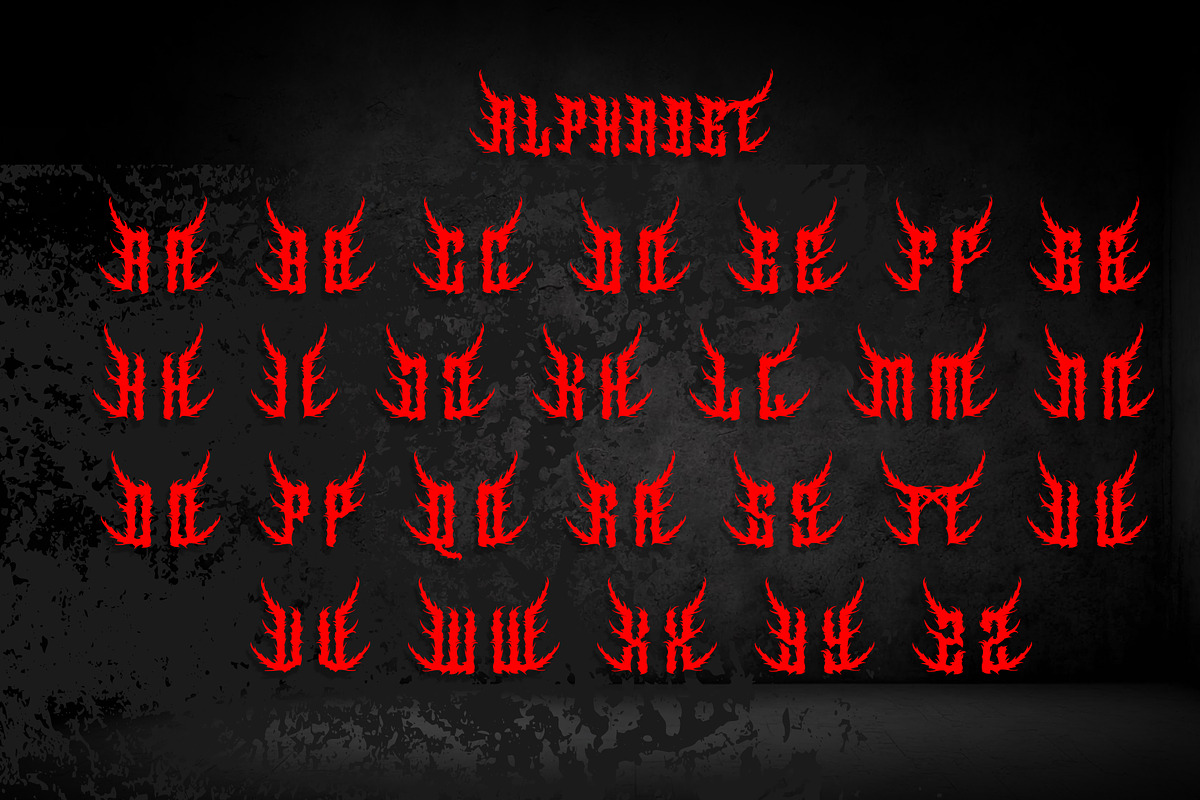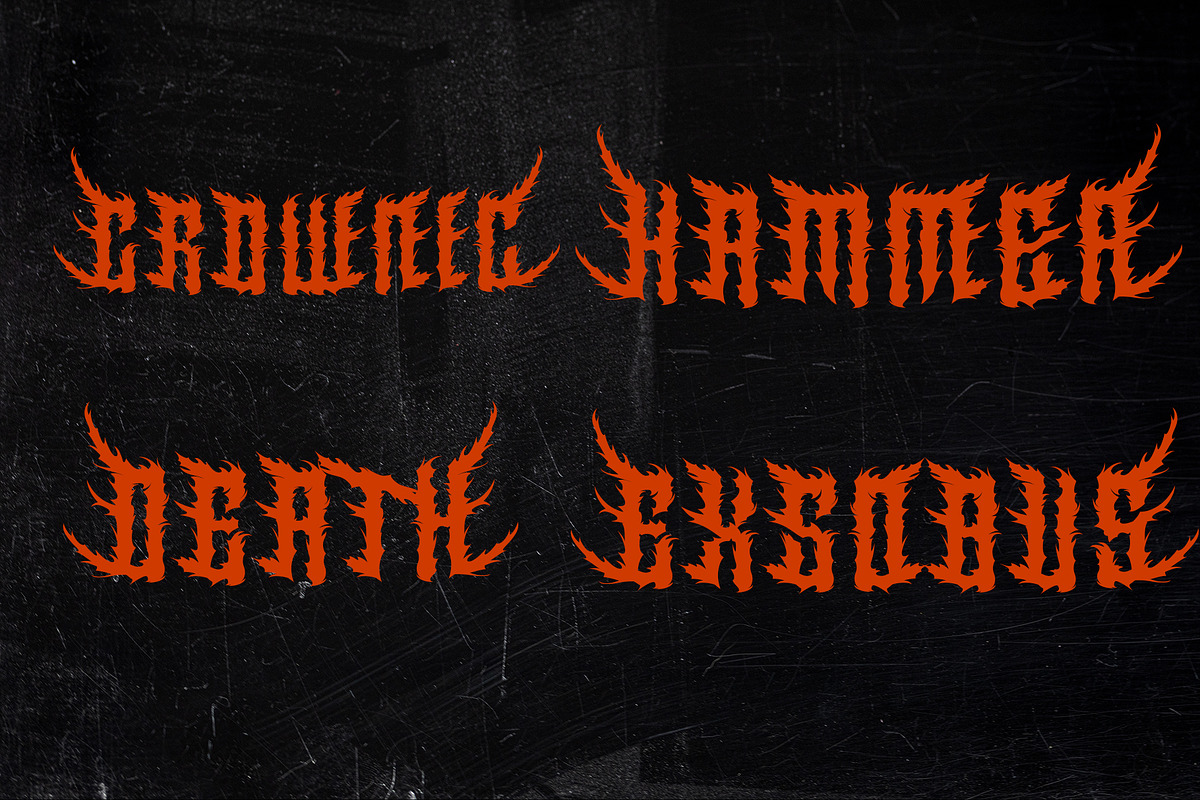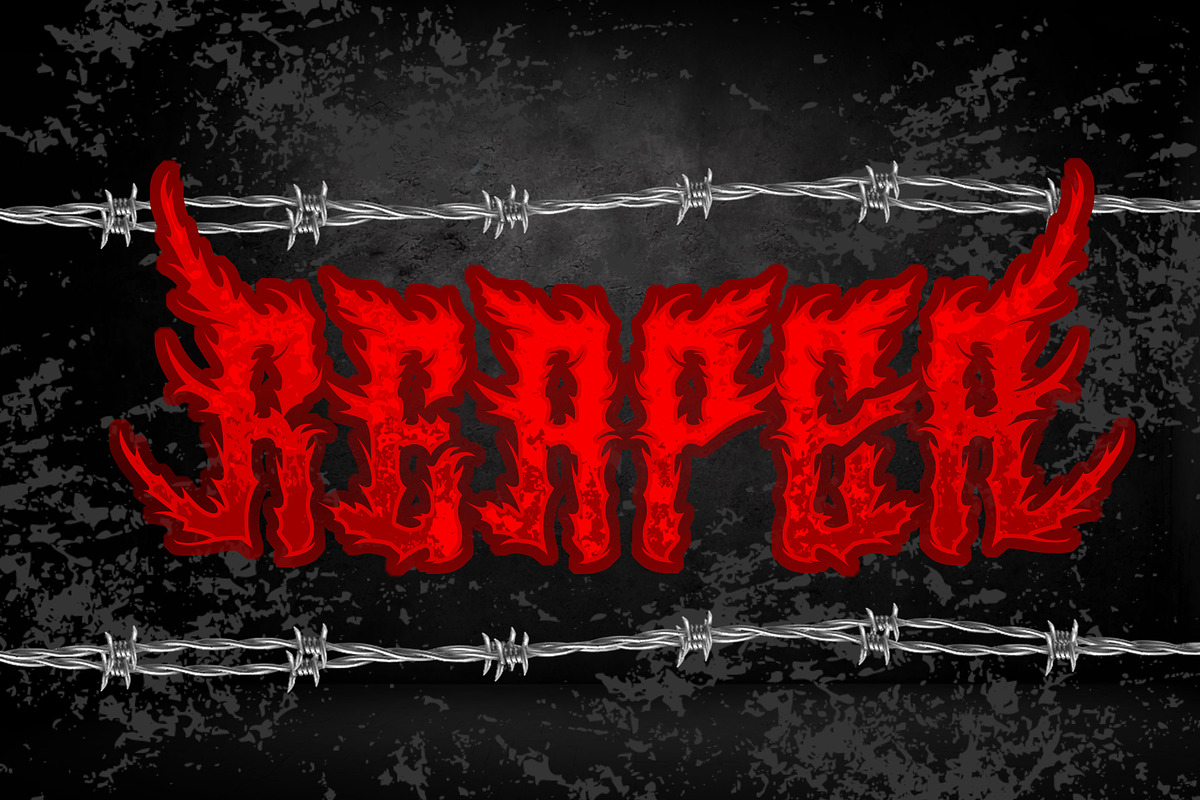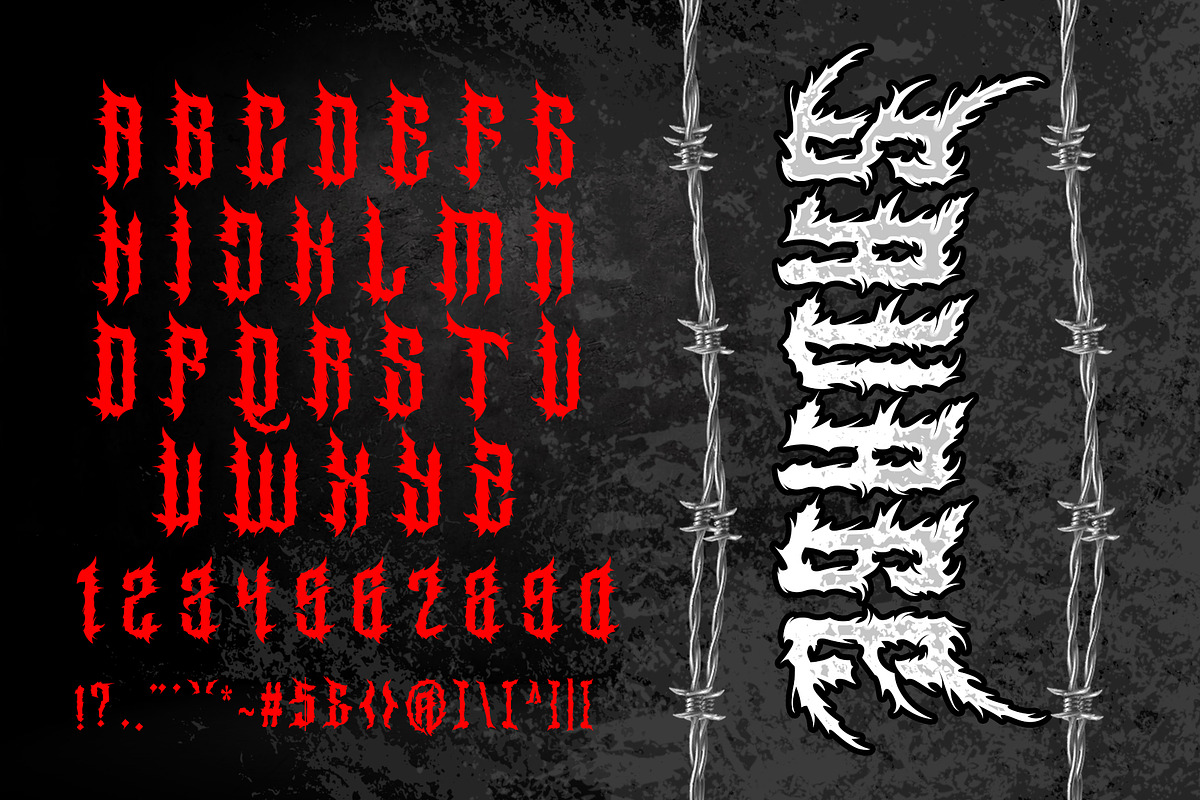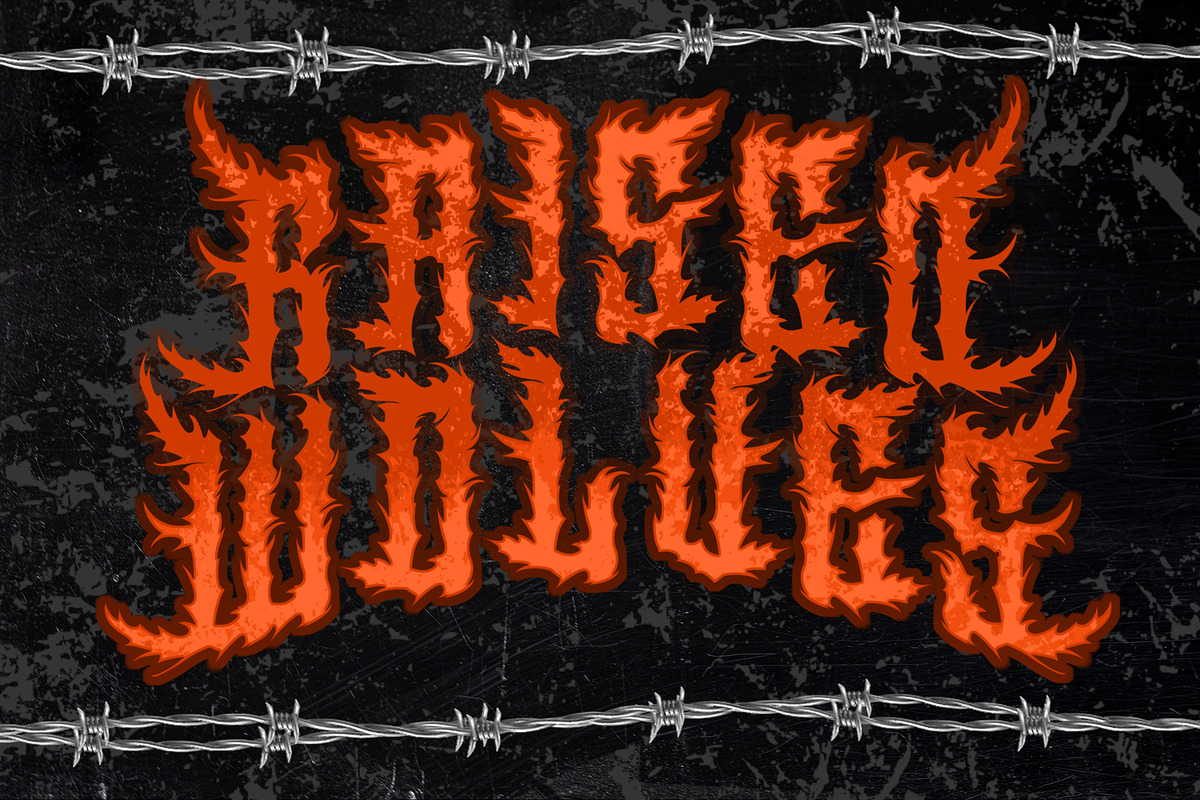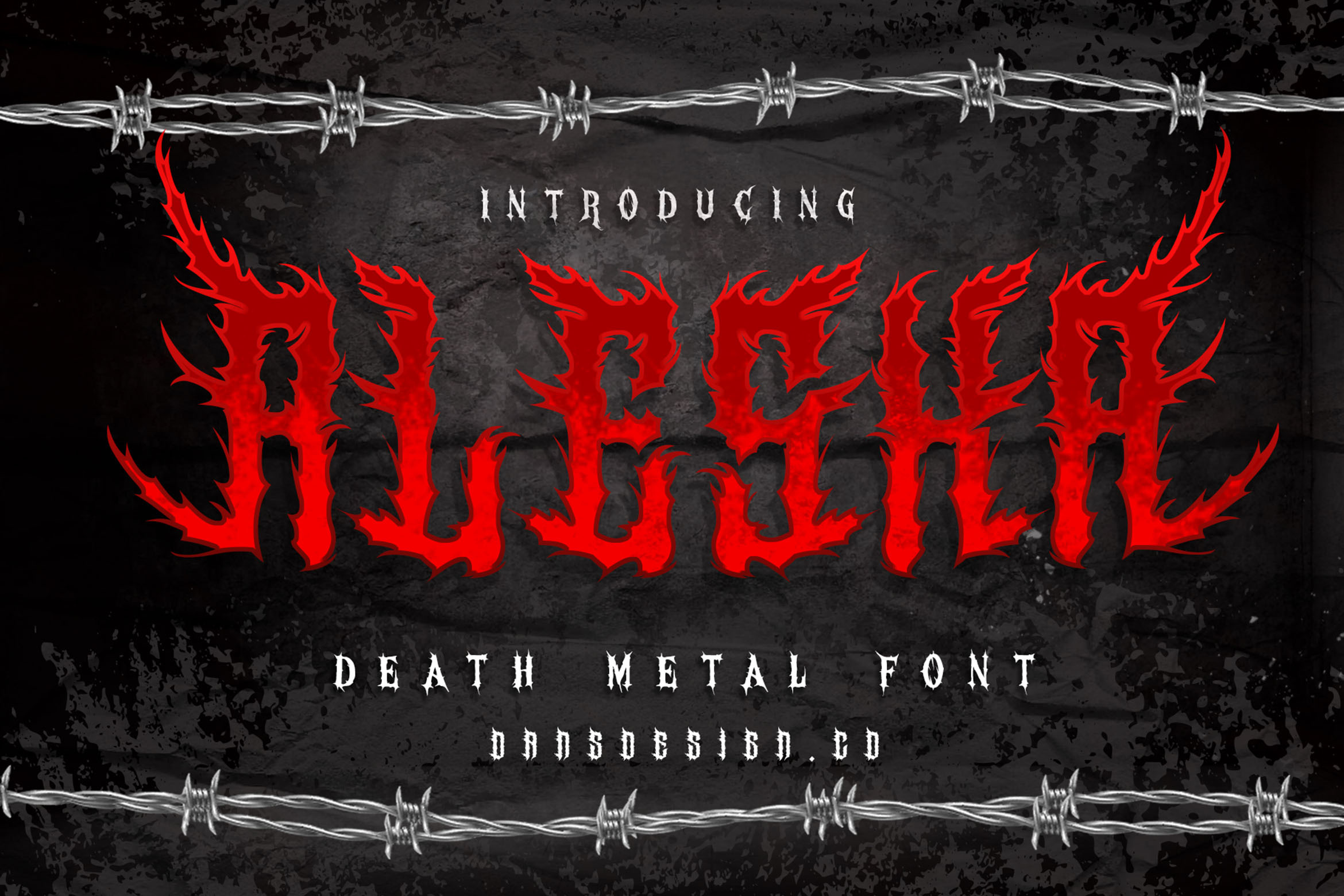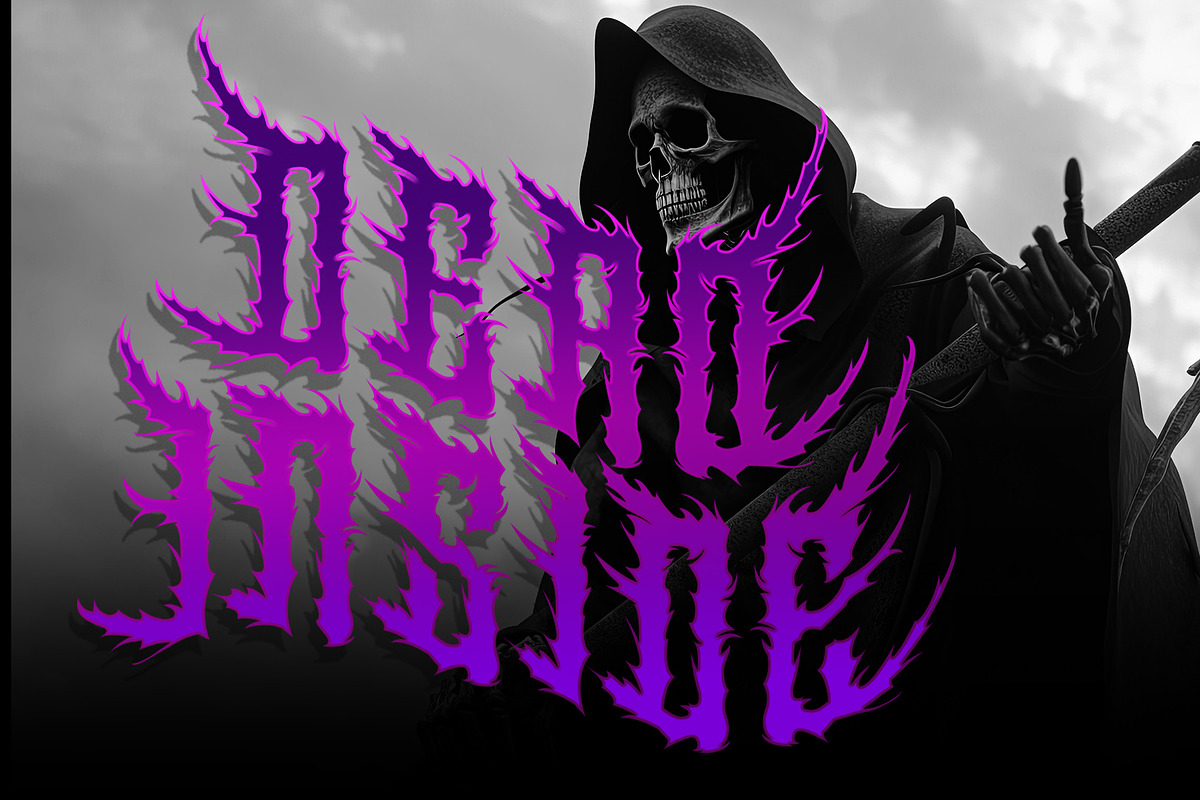
AlesA Modern Metal Horror Font
AlesA Modern Metal Horror Font is distinct, highly detailed, and Horror Metal Font font. It would make a great choice for exquisite Music, Poster, retro-urban designs, tattoo business branding, logos, vintage designs, and more.